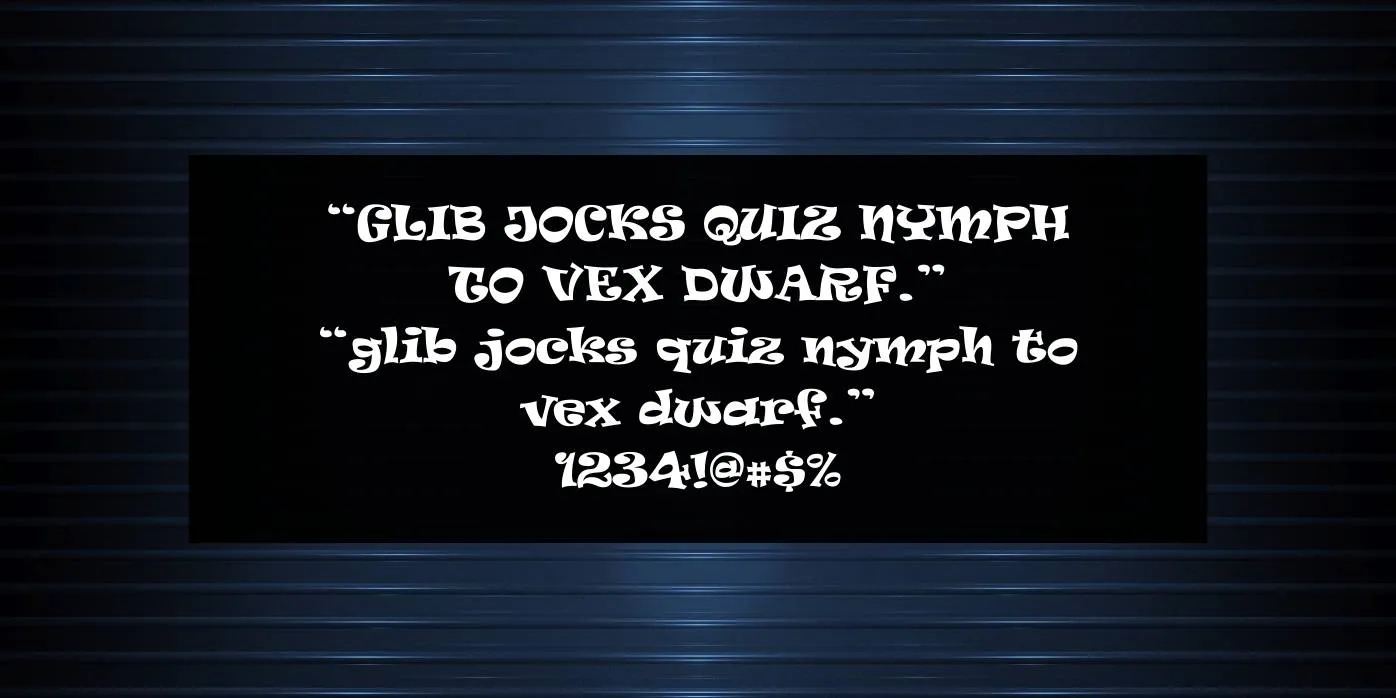
QK Venus Font
QK VENUS Font is a fancy typeface family designed by Jonathan Barnbrook in 2006. It was named after the Venus de Milo, an ancient Greek statue. The Font family contains four different styles: Regular, Italic, Bold, and Bold Italic. You can also try madras Font a sans serif typeface with the same matching appearance and has a pairing feature with another bunch of typefaces as well.
The Font family is most commonly used for headlines and short blocks of text. It is also a popular choice for logos and other branding materials. The Regular style is the simplest of the four, while the other three styles each have their own unique features.